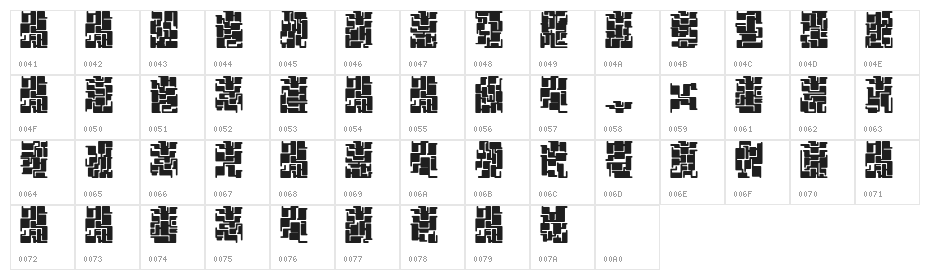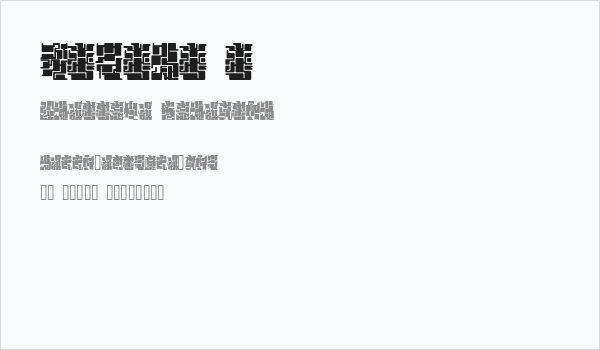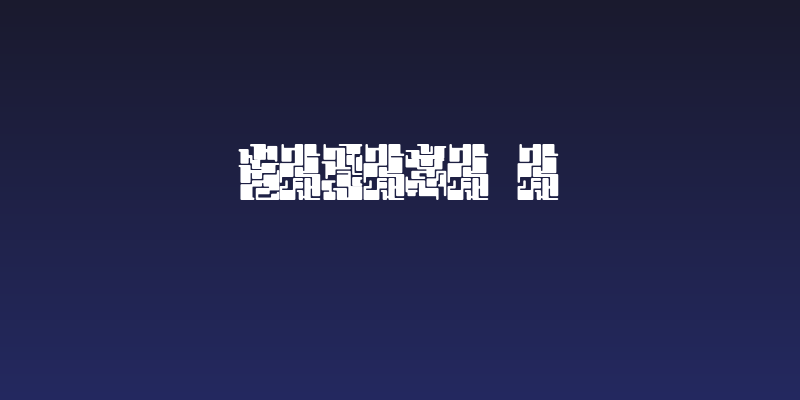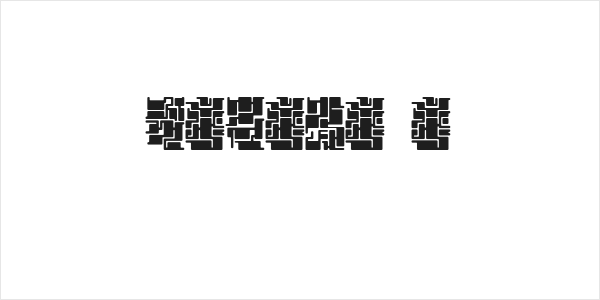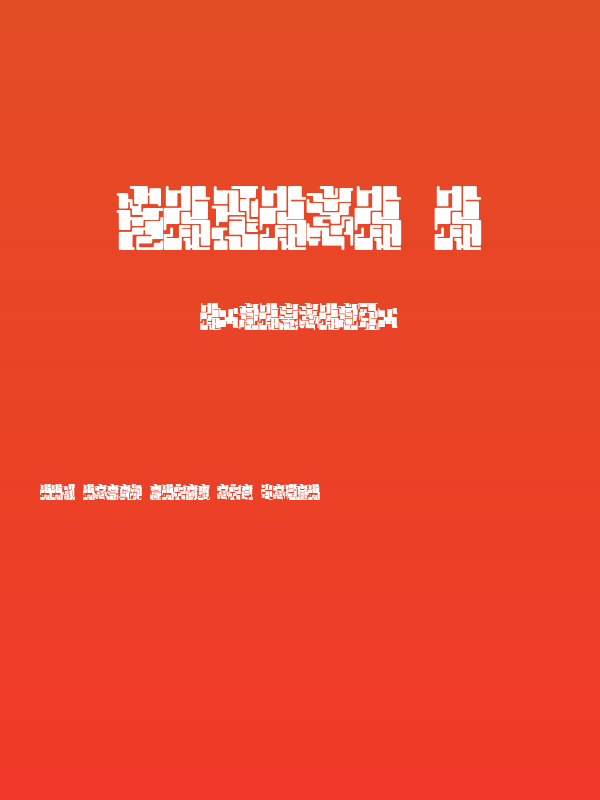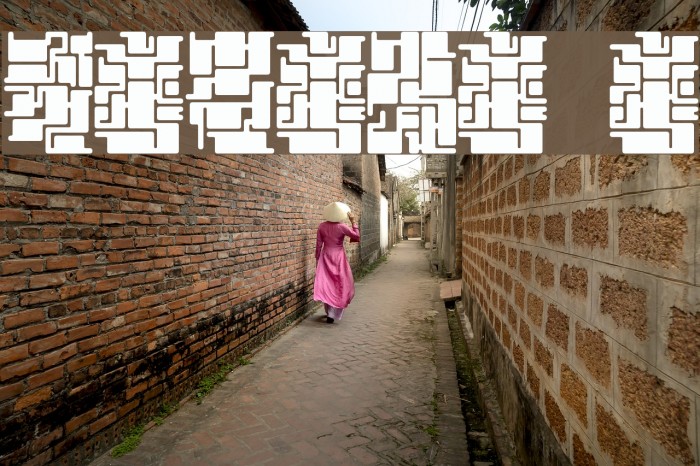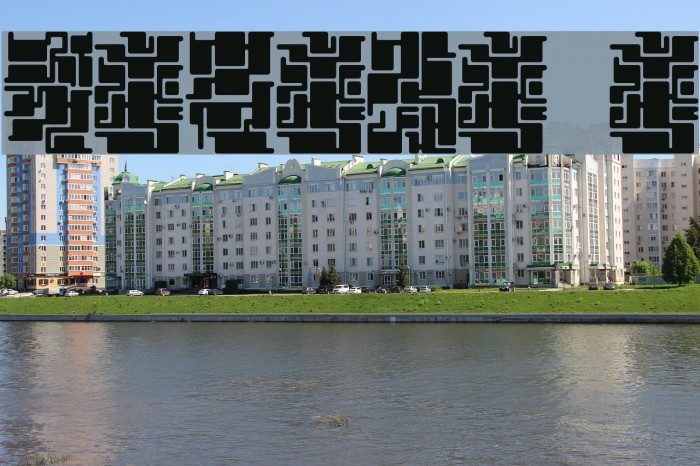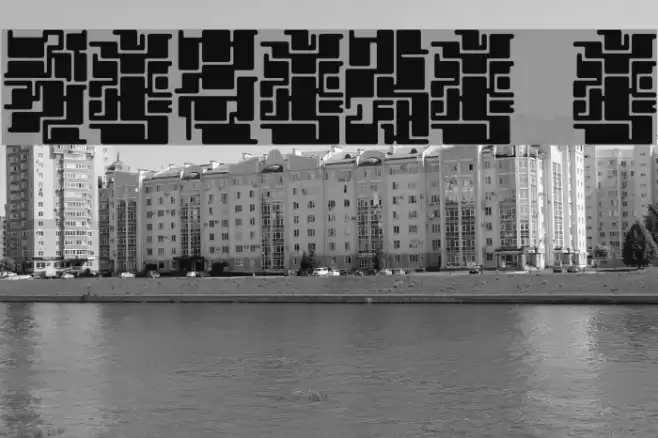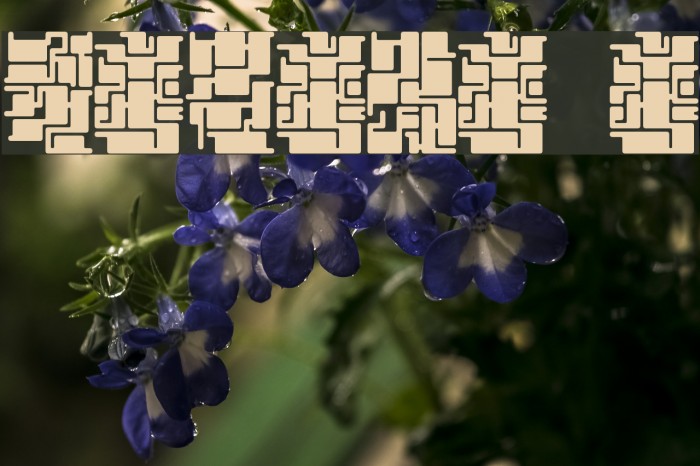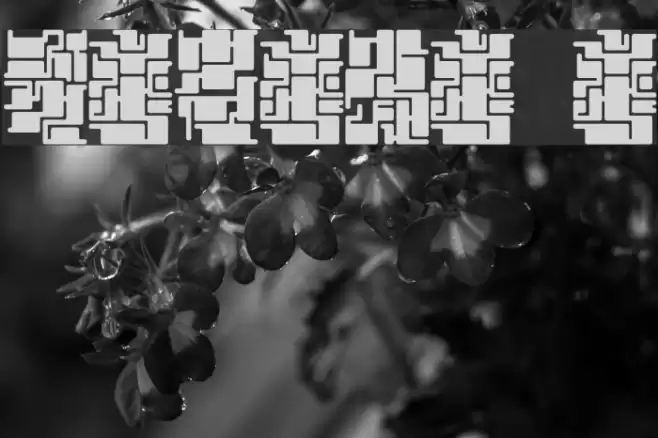
damara a Font
damara a Description
This font features a highly abstract and geometric design, characterized by its maze-like patterns and intricate shapes. Each character is composed of a series of interlocking lines and blocks, creating a visually complex and engaging appearance. The font's unique style makes it stand out, with each letterform resembling a puzzle piece or a segment of a labyrinth. The consistent use of sharp angles and straight lines gives it a modern and futuristic feel, while the dense arrangement of elements within each character adds a sense of depth and texture. This font is not suited for body text due to its complexity but is ideal for creative and artistic projects where a bold statement is desired.
| Use Case | Logos, Headlines, Artistic projects |
| Proposed Projects | Ideal for artistic posters, album covers, digital art, and branding that requires a bold, unique look. |